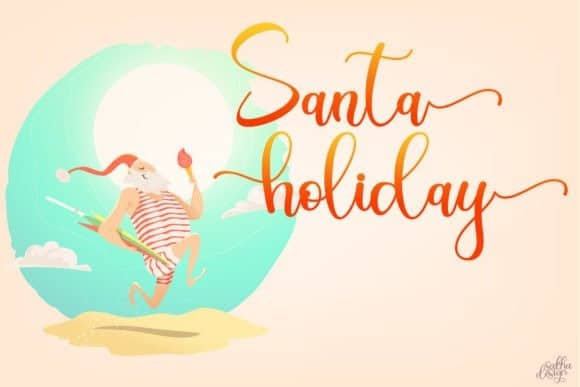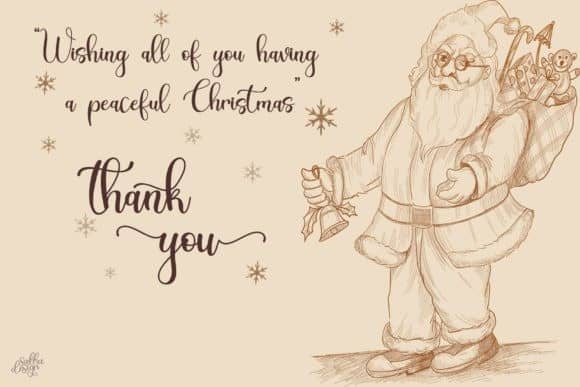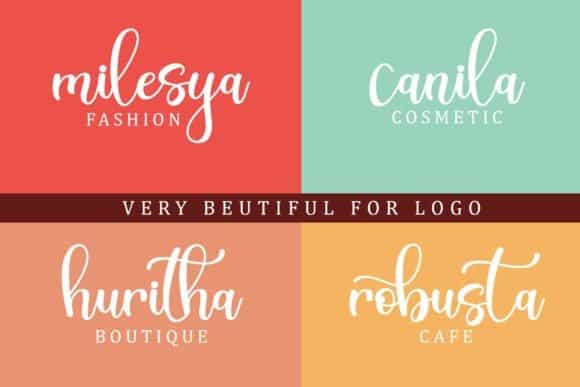
Christmas Bright Calligraphy Font
Christmas Bright Calligraphy Font is made in a modern style with a very beautiful beginning and ending. elegant, very casual, and suitable for your various design needs. It’s designed and shared by Alif Ryan Zulfikar. This typeface is a warm, elegant and cozy handwritten font. it will look gorgeous on each of your festive designs or Christmas letters. This font is PUA encoded which means you can access all of the glyphs and swashes with ease!